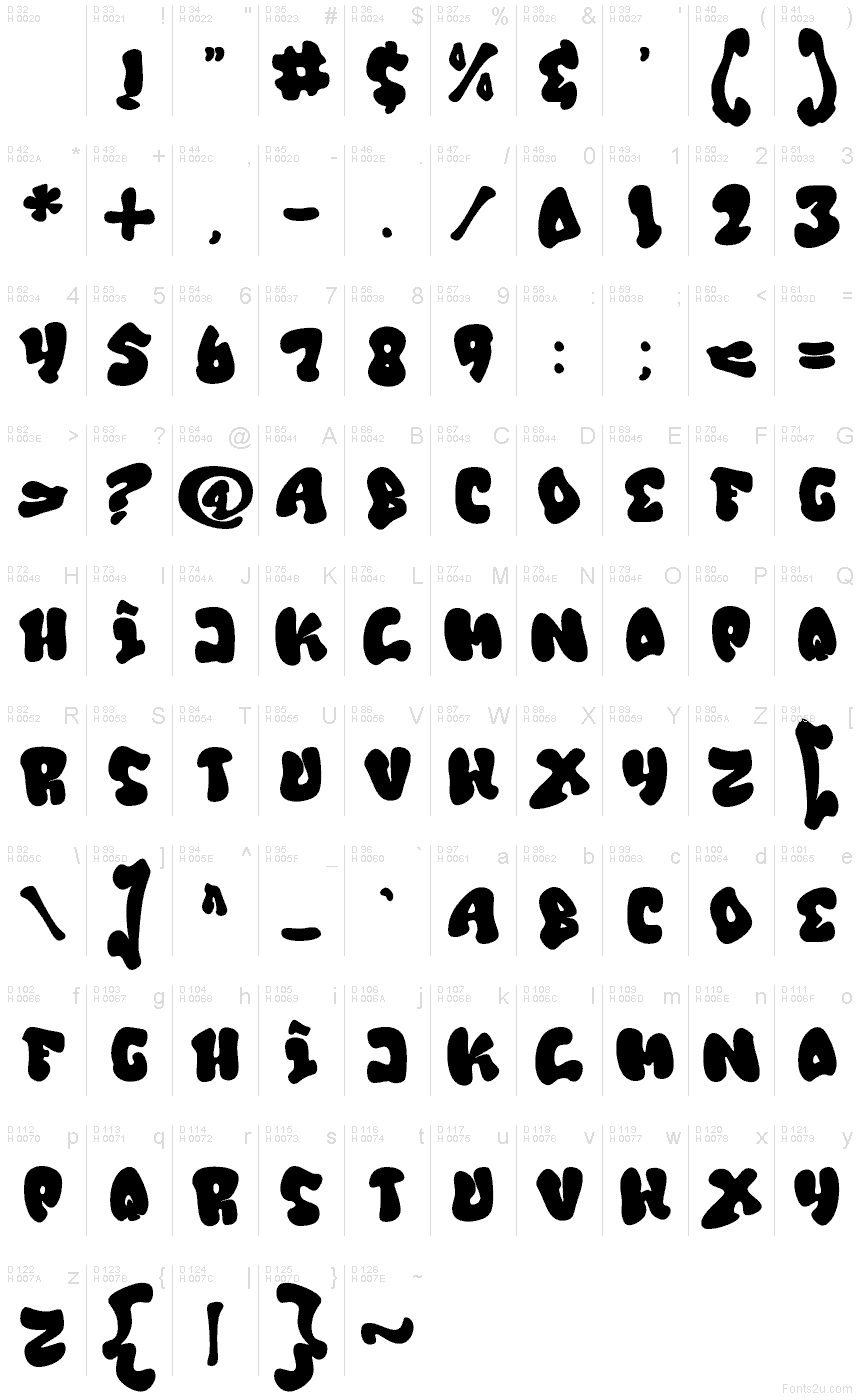
Vandal Rebels Thick
Vandal Rebels Thick font by Cikareotype Studio embodies a graffiti-inspired urban aesthetic, complete with expressive and exaggerated shapes. It is a bold font that possesses the characteristics of both a script and display font fused into one. Every character has its own personality, so even separate letters will hold the same rebellious vibe.
This free handmade typeface can be used for graffiti posters and street art designs such as clothes, shoes (Converse), tote bags, hats, labels, badges. Other applicable uses include album cover designs for urban and hip-hop music bands. It can also be used in comic books or animation materials when editing a short movie or video.